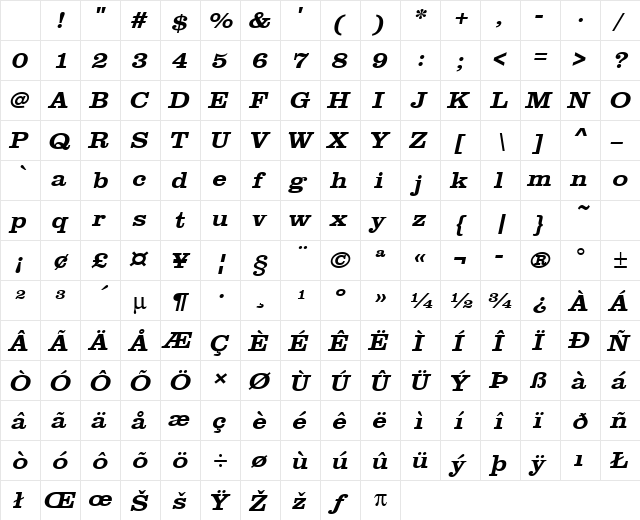
Complete URWClarendonTMedExtWid Oblique glyph index. Displaying only characters natively supported by URWClarendonTMedExtWid Oblique font.
URWClarendonTMedExtWid features prominent, blocky serifs that give it a confident, grounded presence - equally at home in editorial settings and bold branding work. The slanted form adds forward momentum and visual energy.